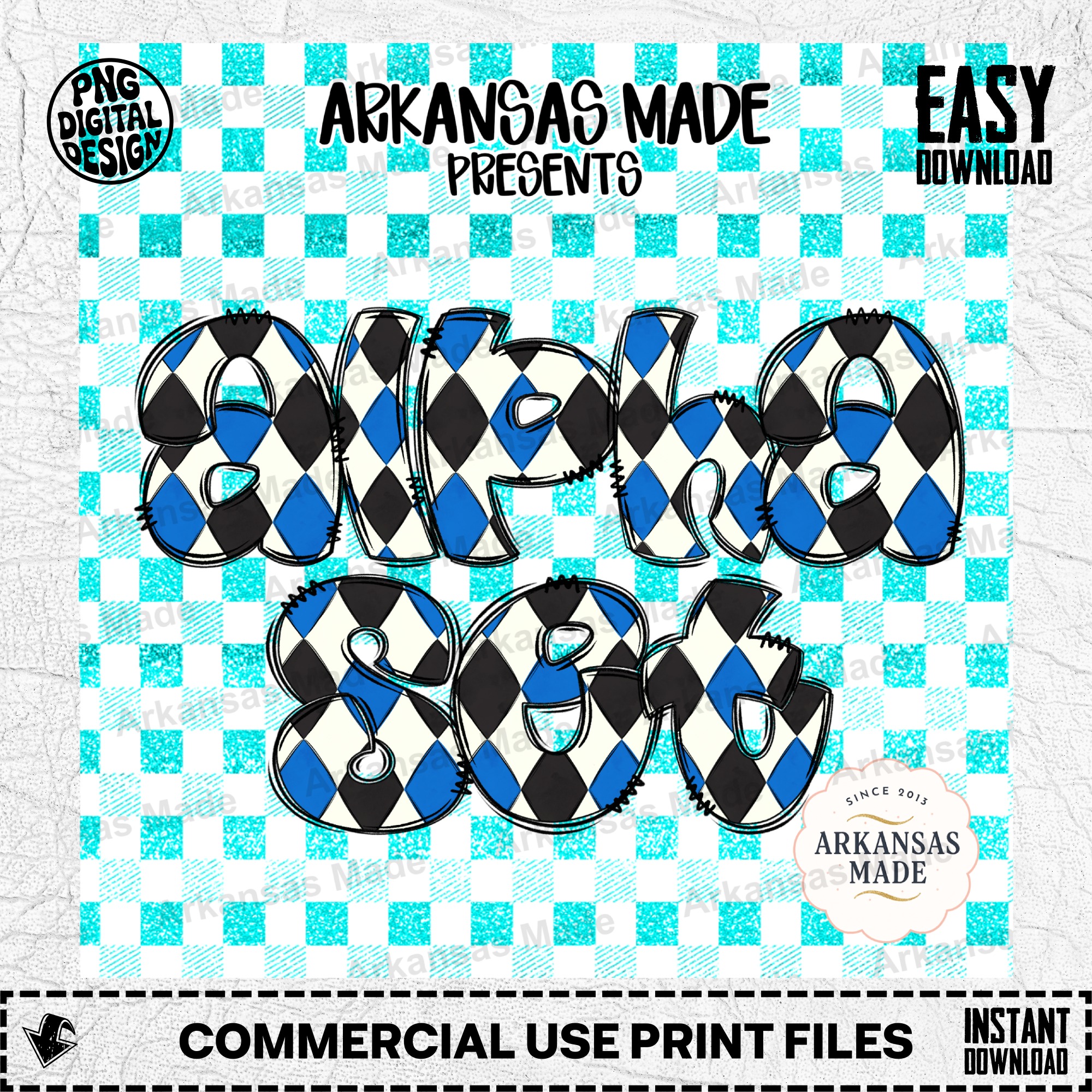
Alpha Beta PNG Set, Distressed Collegiate Letters, Greek Fraternity Sorority Digital Download, Preppy Argyle Harlequin Font, Instant PNG
Elevate your designs with our Alpha Beta PNG Set, featuring distressed collegiate letters perfect for sublimation and digital crafting. This Greek alphabet download offers a preppy argyle harlequin pattern in blue, black, and white. Capture school spirit and collegiate vibes with these hand-drawn, faux-stitched designs. Ideal for DIY projects, t-shirt making, and creating unique gifts for fraternity brothers, sorority sisters, college students, or dedicated sports fans. Perfect for Bid Day, graduation, or game day celebrations.